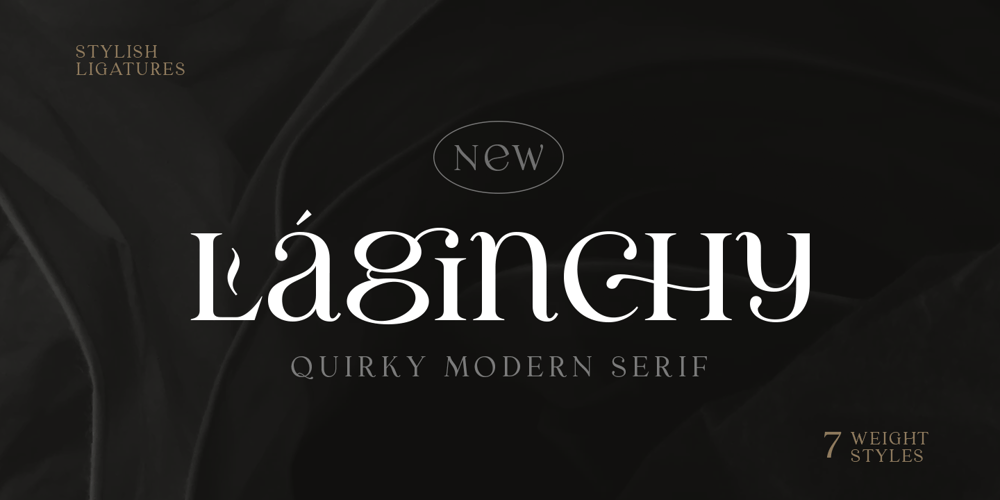
Laginchy Font Family was designed by Sarid Ezra and published by Sarid Ezra. Laginchy contains 7 styles and family package options. Introducing, Laginchy – a quirky serif with 7 weight style!Laginchy is a quirky and modern serif with 7 weight style. With unique lowercase, this fonts will make your presentation, poster, or logo even more stunning and stand out! Also comes with stylish ligatures! This fonts support Multi Language and already PUA Encoded!Features Uppercase with unique lowercase Number & Symbol Multi language Stylish ligatures PUA Encoded